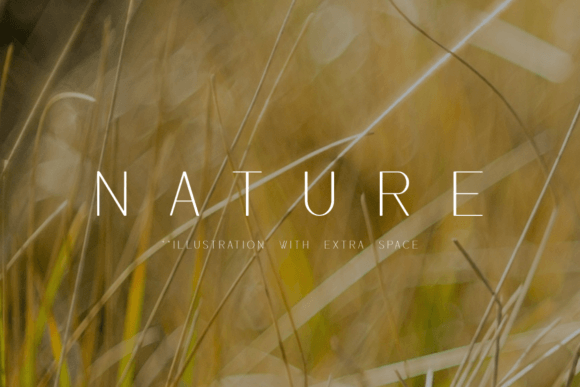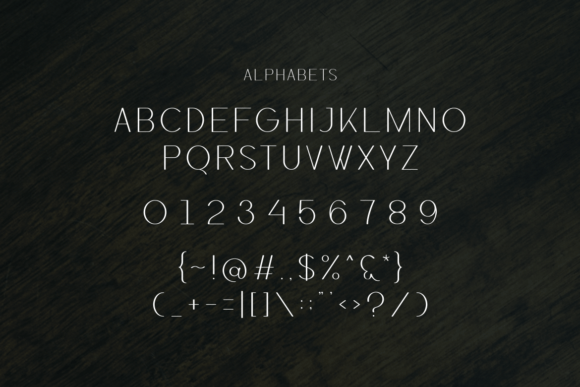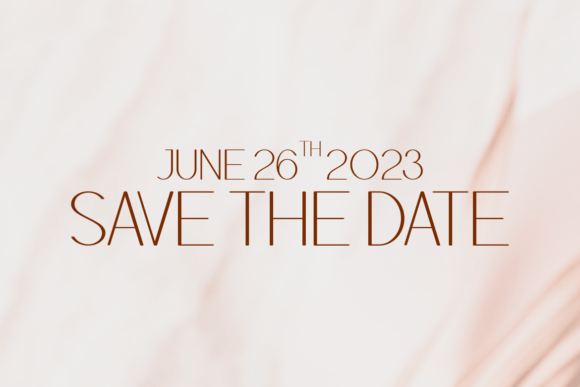
Introduction to Loreyna Font
Have you ever found yourself in a rush to finalize the design for your best friend’s birthday card, or a wedding invitation for a family member? The pressure to create something unique and special can be overwhelming, especially when time is of the essence. But what if you had access to a reliable design resource that could elevate your creative project in an instant?
Enter the Loreyna Font, a stunning sans-serif font that has been making waves in the design community. Its versatility, high quality, and transparent background make it the perfect addition to any creative project. Whether you’re a seasoned designer or a DIY enthusiast, the Loreyna Font is an invaluable resource that can help you bring your ideas to life.
Key Features of Loreyna Font
- Features a transparent background, allowing for seamless integration with any design project.
- Includes a range of characters and glyphs, making it suitable for various creative applications, from logos to typography.
- Designed to be highly legible, with a clean and modern aesthetic, making it an ideal choice for designers and artists.
- Unique characteristic: Loreyna Font features a distinctive, hand-drawn feel, adding a touch of personality to any creative project.
Honest Review: Loreyna Font
As a designer, I’m always on the lookout for high-quality design resources to elevate my creative projects. Recently, I had the chance to work with the Loreyna Font, and I must say it’s been a pleasant experience.
- ✨ High-quality typography: The Loreyna Font boasts elegant and refined letterforms that add a touch of sophistication to any design project.
- ✨ Transparent background: This feature allows for seamless integration with images and backgrounds, giving designers more creative freedom.
- ⚠️ Limited font styles: While the font itself is beautiful, the lack of additional styles, such as bold or italic, can be a drawback for some designers.
Overall, I’m impressed with the Loreyna Font. Its high-quality typography and transparent background make it a valuable resource for designers. While it may have some limitations, it’s still a great addition to any design library.
Tips for Getting the Most Out of Loreyna Font
For optimal results, use Loreyna Font in conjunction with a transparent background to create a clean and modern design. Experiment with different font sizes and styles to add visual interest to your project.
Loreyna Font is ideal for creative projects requiring a high-quality, elegant font. Use it for invitations, social media graphics, or any design where a sophisticated look is desired.